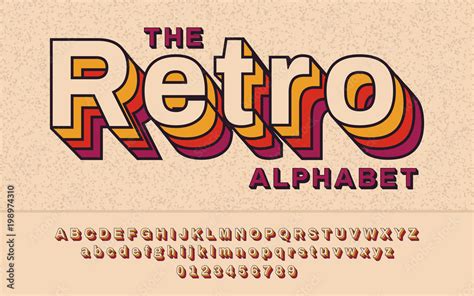
Revive Your Nostalgia with Retro Adobe Fonts
Do you remember the times when you used to use vintage fonts in your documents? Do you miss them now? If yes, then you’re not alone!
Adobe is bringing back the nostalgia of yesteryear with its new collection of retro fonts. In this article, we will explore the endless possibilities of using these Adobe fonts to revive your old memories and take your design projects to the next level.
Do you want to spice up your typography? Do you want to add a vintage feel to your designs? Are you interested in finding out more about Adobe’s retro fonts? If yes, then you’re in the right place!
Adobe’s new collection of retro fonts have been inspired by classic typefaces from the 1950s and 1960s. The fonts are perfect for adding a touch of nostalgia to your projects. Whether you’re creating a vintage poster or an old-school logo, Adobe’s retro fonts will give your design a timeless look and feel.
Not only do these fonts add a nostalgic feel to your design projects, but they also provide a unique and creative way to express your ideas. With Adobe’s retro fonts, you can create stunning visuals that will stand out from the crowd.
So, if you’re looking for a way to revive your nostalgia and add a vintage touch to your projects, then look no further than Adobe’s new collection of retro fonts. Read on to find out more about these fonts and how they can help you create stunning designs.
Revive Your Nostalgia with Retro Adobe Fonts
Retro Fonts from Adobe Fonts
Adobe Fonts also offers an extensive library of retro fonts. These fonts are perfect for those who want to evoke a feeling of nostalgia or inject a touch of vintage style into their designs. From classic typewriter fonts to art deco designs, there’s something for everyone in Adobe Fonts’ retro font library.
Using Retro Fonts in Adobe Illustrator
Using retro fonts in Adobe Illustrator is similar to using them in Adobe Photoshop. First, open the “Type” tool and select the font you want to use. Then, type your text and adjust the size, color, and other settings. You can also use the “Character” and “Paragraph” panels to fine-tune your text. Finally, click “OK” to apply your changes.
Using Retro Fonts in Adobe InDesign
Using retro fonts in Adobe InDesign is similar to using them in the other Adobe Creative Cloud applications. First, open the “Type” tool and select the font you want to use. Then, type your text and adjust the size, color, and other settings. You can also use the “Character” and “Paragraph” panels to fine-tune your text. Finally, click “OK” to apply your changes.
Using Retro Fonts in Adobe XD
Using retro fonts in Adobe XD is similar to using them in the other Adobe Creative Cloud applications. First, open the “Type” tool and select the font you want to use. Then, type your text and adjust the size, color, and other settings. You can also use the “Character” and “Paragraph” panels to fine-tune your text. Finally, click “OK” to apply your changes.
So, if you’re looking to add a touch of nostalgia to your designs, why not take a look at the vintage adobe fonts? You’ll be sure to find the perfect typeface to bring your ideas to life and take your projects to the next level!